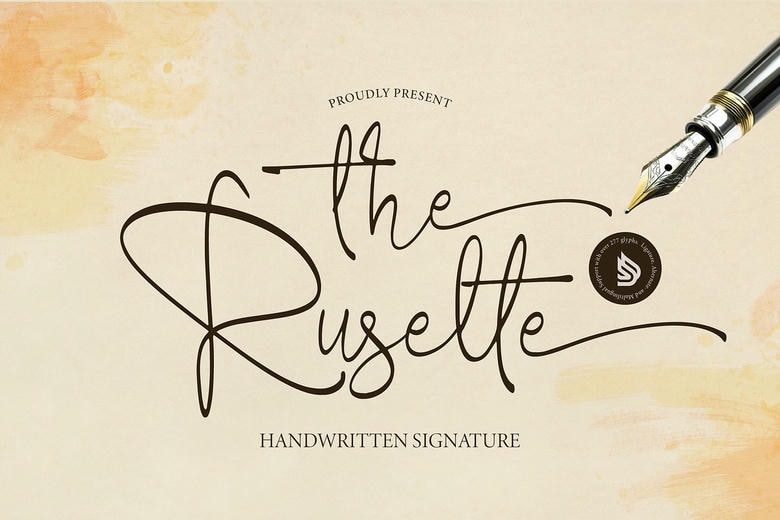
The Ruselte Font
The Ruselte Font | Handwritten Signature, from Denustudios, suitable for any projects such as: logo design, branding projects, home ware designs, product packaging, mugs, quotes, posters, shopping bags, t-shirts, book cover, name card, invitation cards, greeting cards, labels such as watermark, special occasions, and to all your other pretty projects that require exquisite script touch.
The Ruselte Handwritten Font